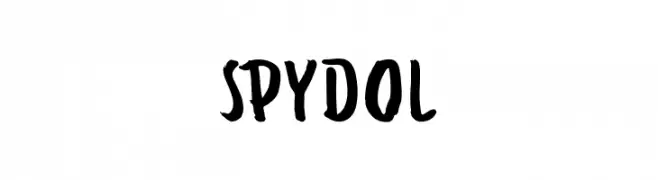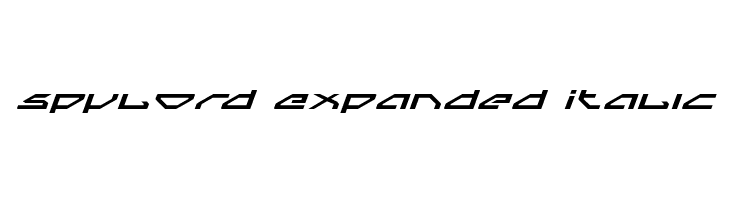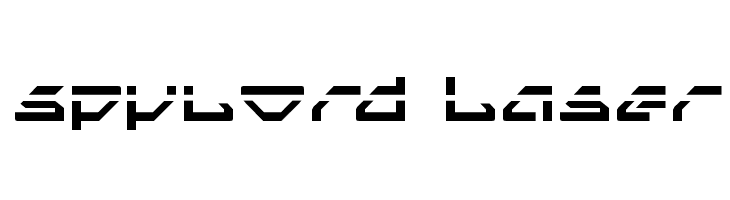
• Spy Agency Outline 字体
A bold, geometric outline font with a futuristic and tech-inspired design.
• Spy Agency Outline Italic 字体
A bold, italicized outline font with a futuristic and dynamic style.
• Spy Agency Outline Italic 字体
A bold, italicized outline font with a modern, geometric design.
• Spy Agency Semi-Italic 字体
A bold, angular font with a semi-italic slant and a modern, dynamic style.
• Spy Agency Semi-Italic 字体
A modern, semi-italic font with bold, angular characters.
• Spy Lord 字体
• Spy Regular 字体
A bold, 3D geometric font with a shadow effect, perfect for modern designs.
• Spyced 字体
• SPYDOL 字体
A bold, expressive handwritten font with a dynamic, brush-like texture.
• SpydollsDemo 字体
A lively and energetic script font with fluid, connected letterforms.